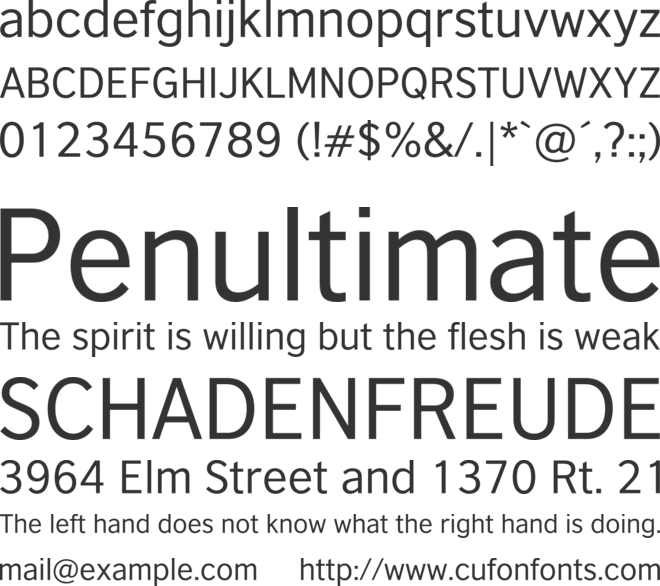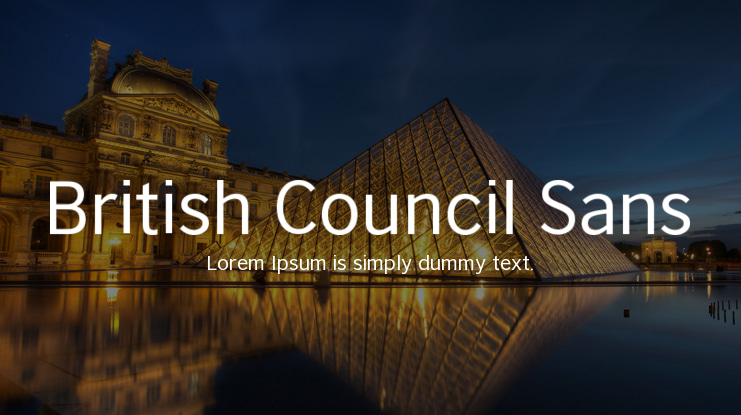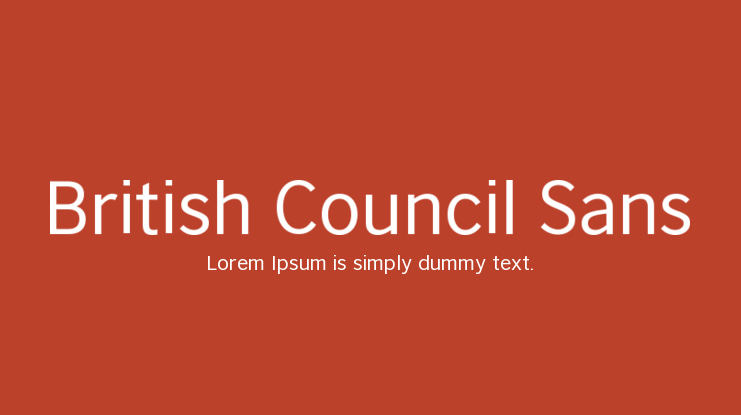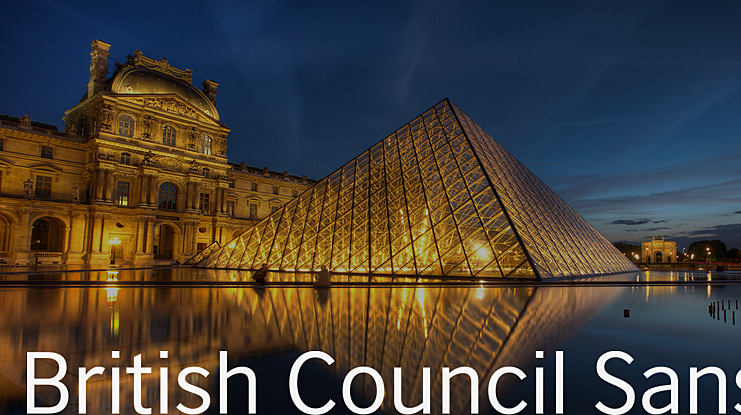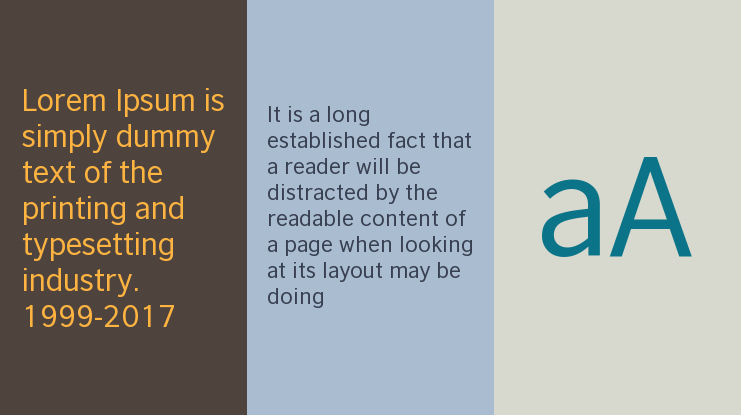
British Council Sans Font Family
British Council Sans has been designed to our unique specification and is our mandatory typeface on all printed materials. Although it may look quite similar to some other sans serif typefaces, there are a number of ways you can tell British Council Sans from other typefaces. British Council Sans has been designed to be clean cut and easy to read. It has a large β€˜x’ height (the height of lowercase letters, specifically x) which is designed to make it easy to read and also helps distinguish it from other typefaces. The example letters below show how you can easily recognise British Council Sans by comparing it to other typefaces.